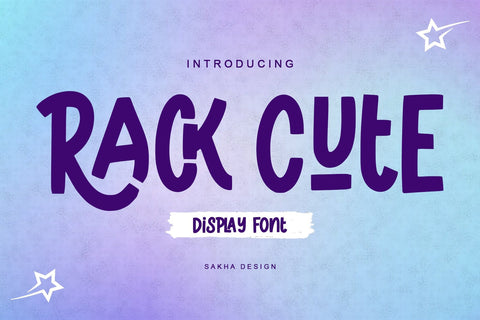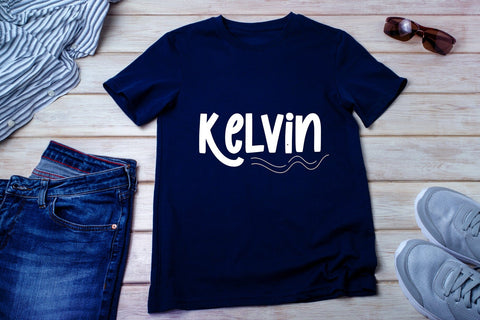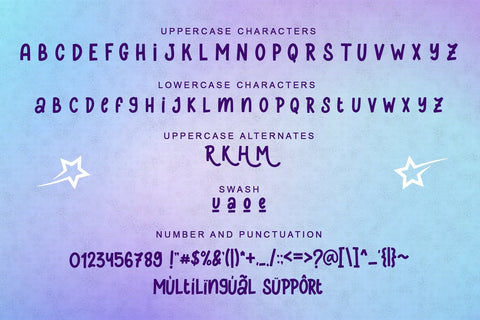
Rack Cute - Display Font
Rack Cute is a lively display font featuring playful and bold characters. Perfect for posters, packaging, and children’s designs, its whimsical style and vibrant energy make it ideal for projects requiring a fun and eye-catching appeal.